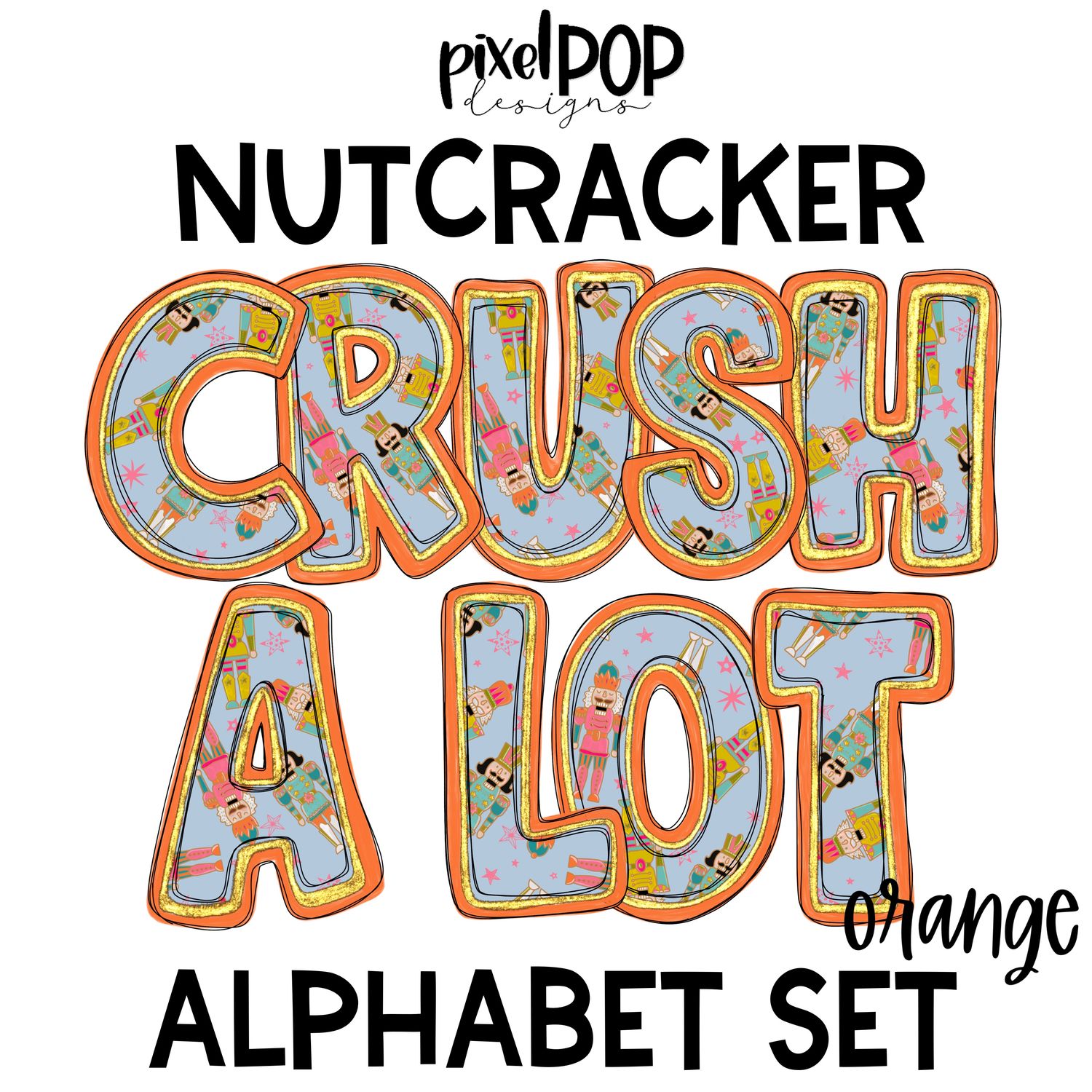
This listing is for a hand drawn alphabet set, not a completed wearable item or print that is shipped to you.
(1) Hand drawn alphabet set (letters A through Z with additional lowercase a, e, and i) in nutcracker print with orange outlining